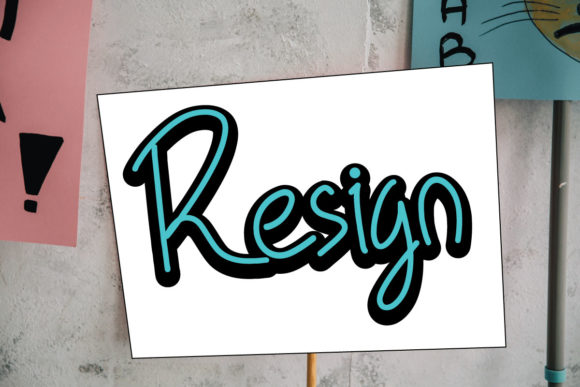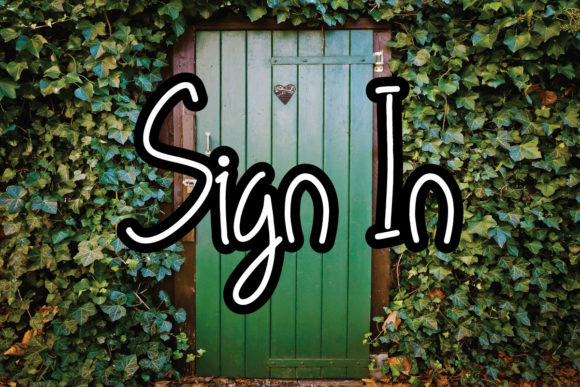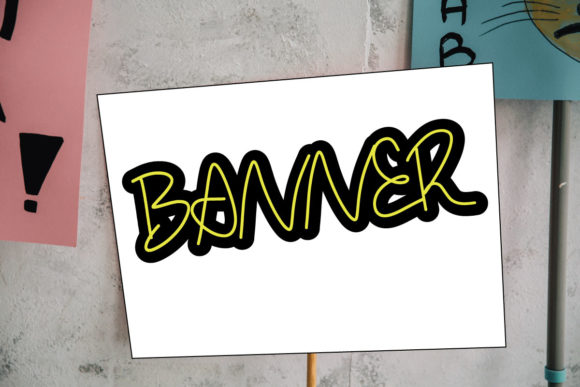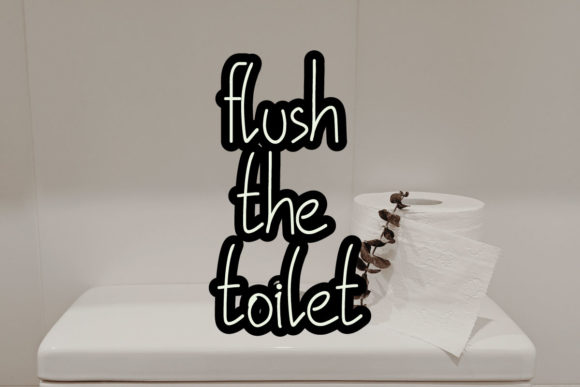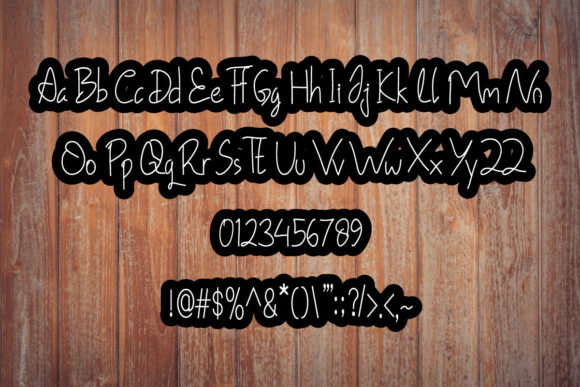
Resign Font
About Resign Font
Resign is a simple and quirky handwritten font. This dazzling and friendly font will turn any creative idea into a standout!